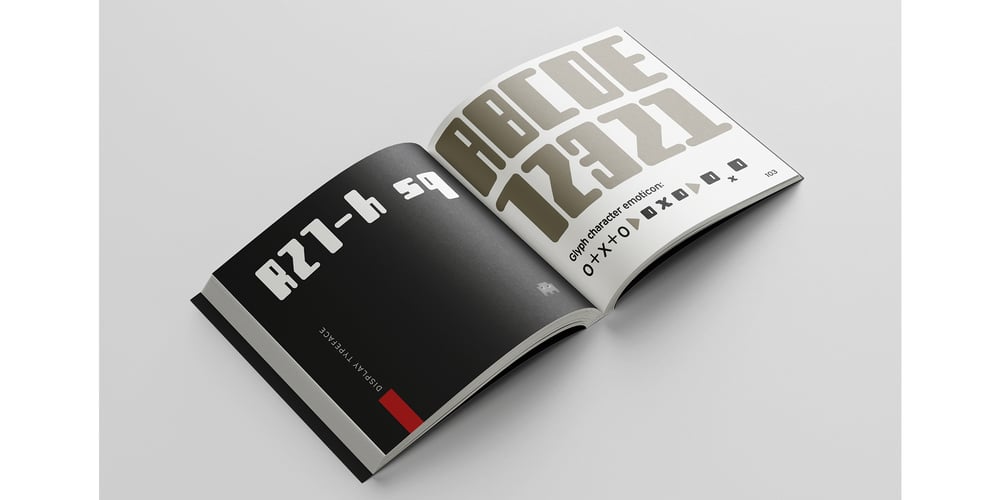
R21 hSq
R21 hSq font
R21 hSq Font Family was designed by Lucia Indriani and published by 103cia. R21 hSq contains 5 styles and family package options. R21-h sq is stand for “Ratio 2:1 in horizontal square”; a comparison in making a glyph typography, horizontally in the form of a square.R21-h sq font consists of bold-retro typeface with its own unique funky style. Suitable for app design, games, toys character face, storybook covers, logos, advertisements, branding, poster, or anything that needs a daring and fresh typography.Font include: Extended Latin Cyrillic Greek* * Additional Light font for Greek only.All styles include Latin standards (except for free/demo version). The glyph 6, 8, 9, x, O, Q and X on display are for commercial version (the free/demo version are different).